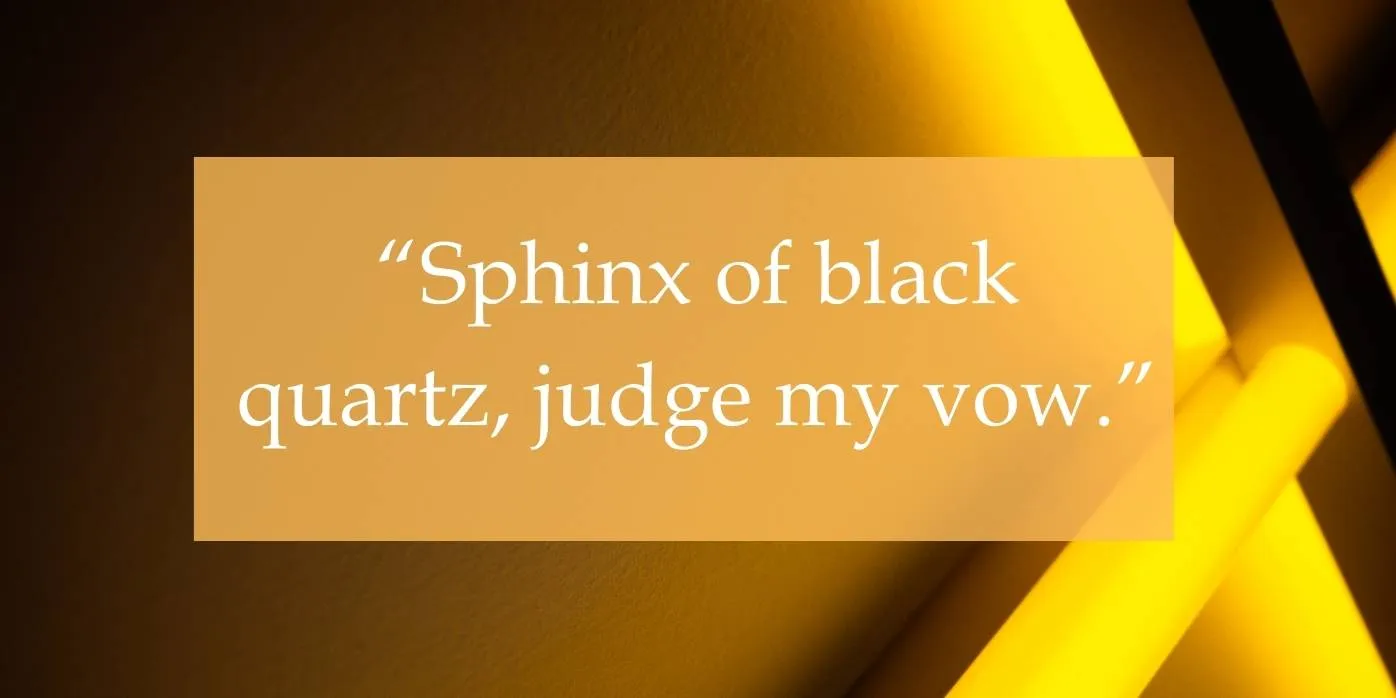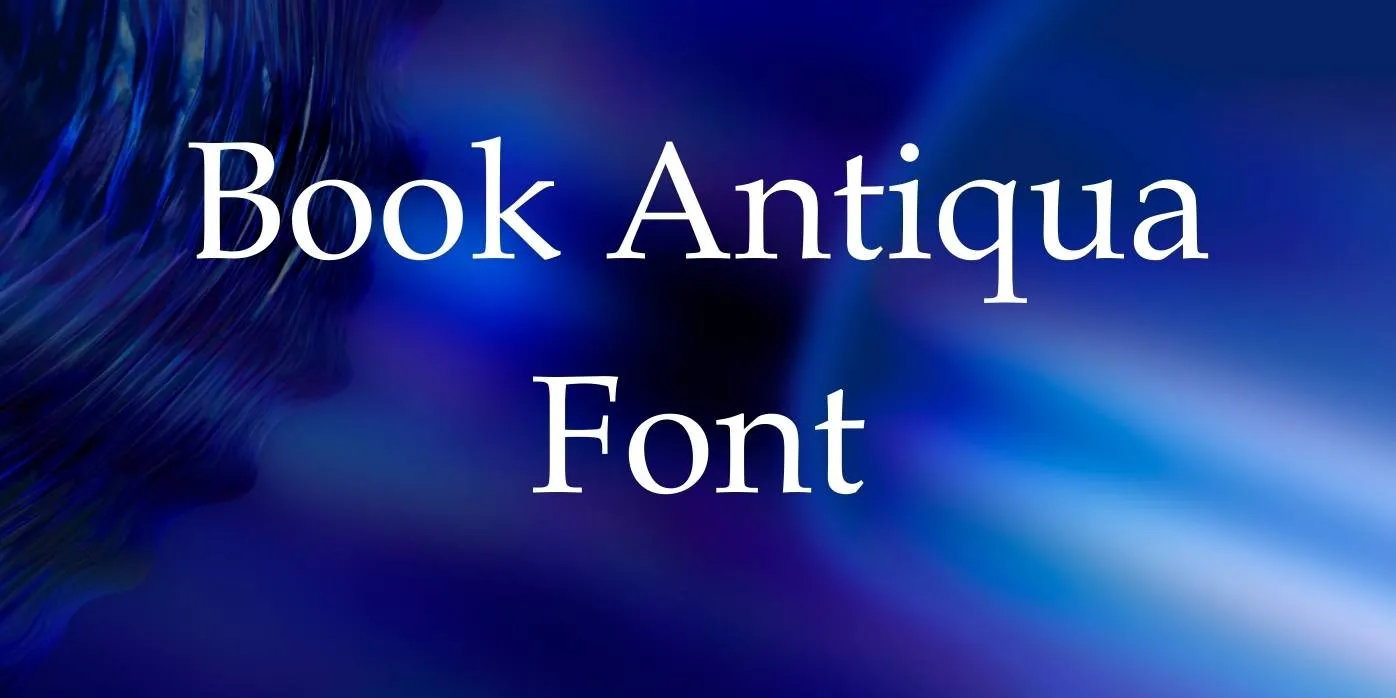
Book Antiqua font
Book Antiqua font was designed by Monotype Corporation. It is a revival of the early English typefaces. It belongs to the Serif typeface. This font has a very amazing look and is often used for printing classical texts.
This font is perfect for printing classical texts, magazines, and books. If you are looking for a classic and elegant font, it is the best choice. It is also very easy to read, which makes it perfect for long texts. Neutra text Font is best for many designs that are closest to this typeface.